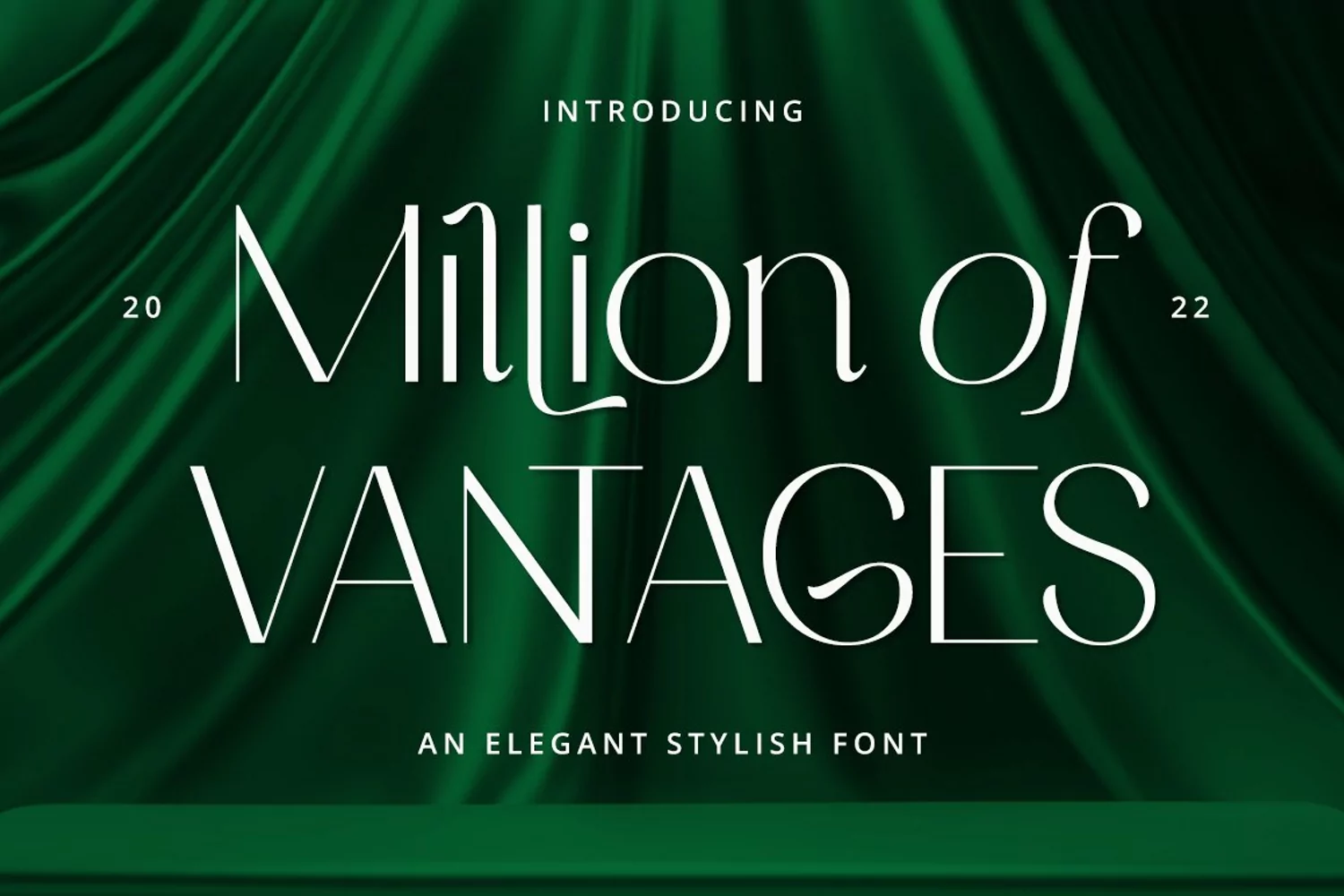
Created By Rockboy Studio
Million of Vantages
Million of Vantages is a minimal and modern sans serif font. It can easily be matched to an incredibly large set of projects, so add it to your creative ideas and notice how it makes them stand out!